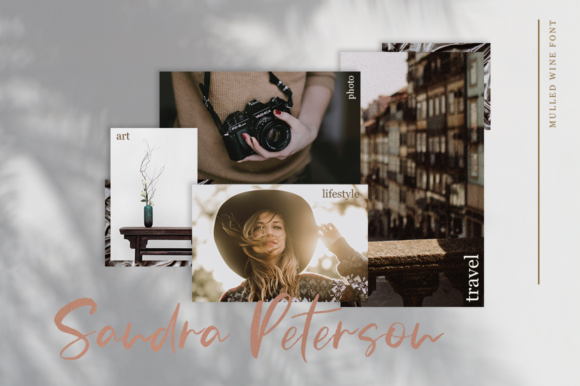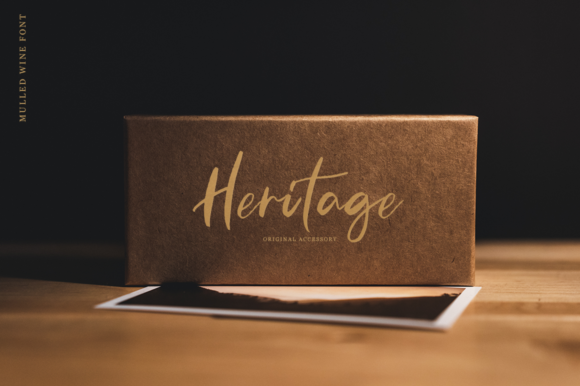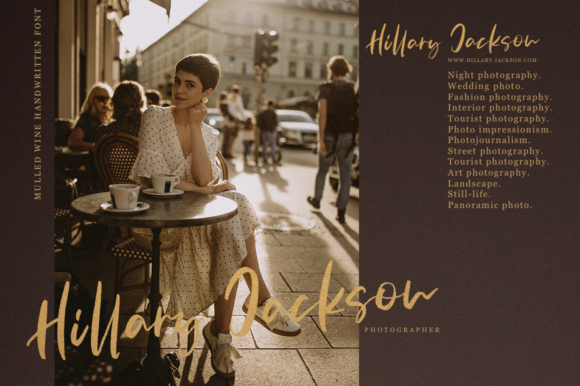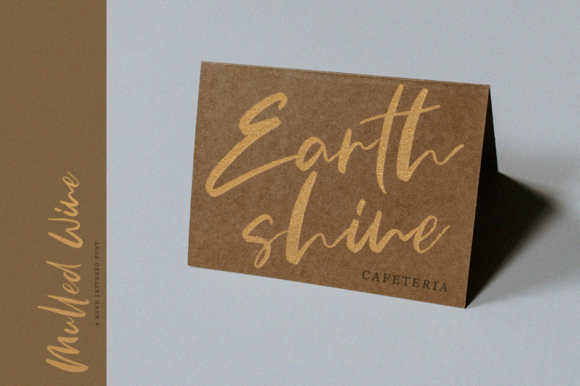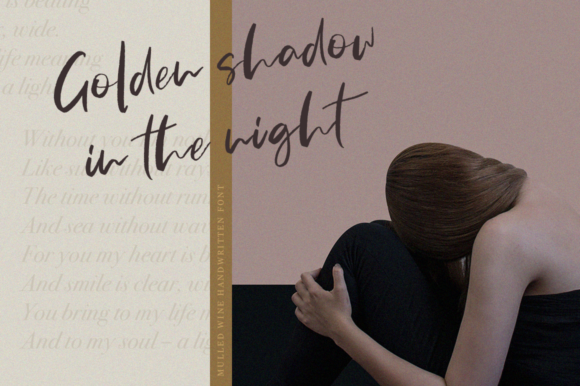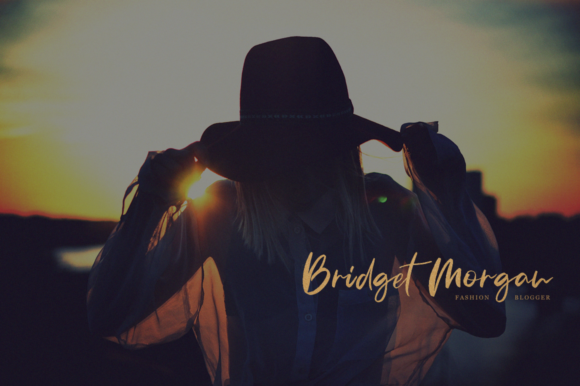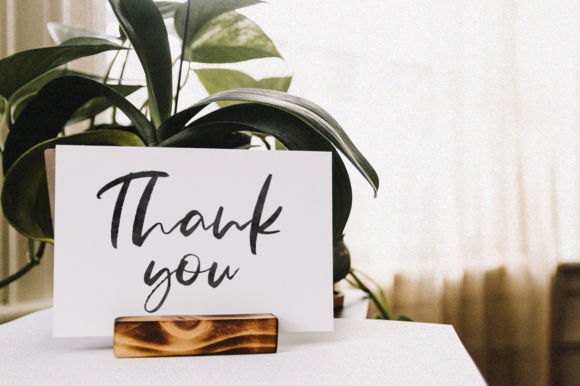
Mulled Wine Font
About Mulled Wine Font
The Mulled Wine is a fresh handmade font. It’s ideal for branding and decorating your wedding invitations, blogs, logos, book covers, and much more!